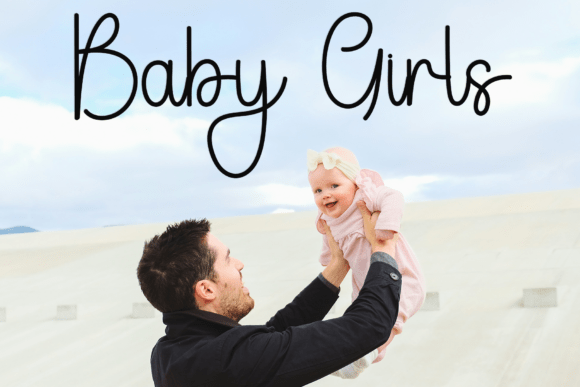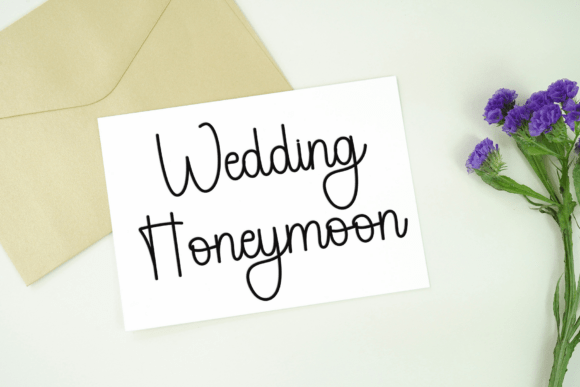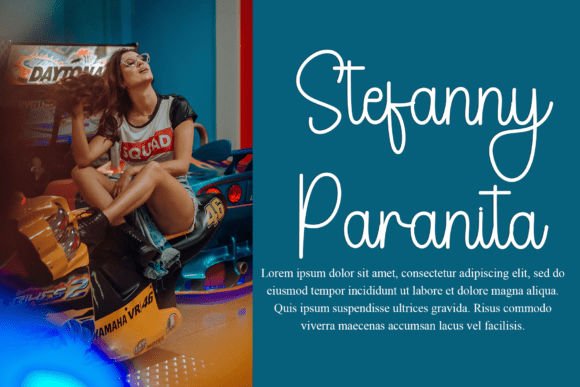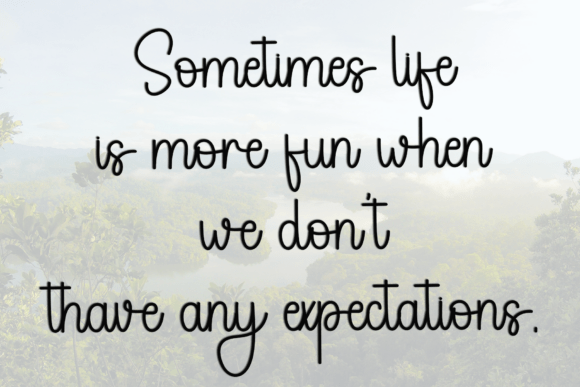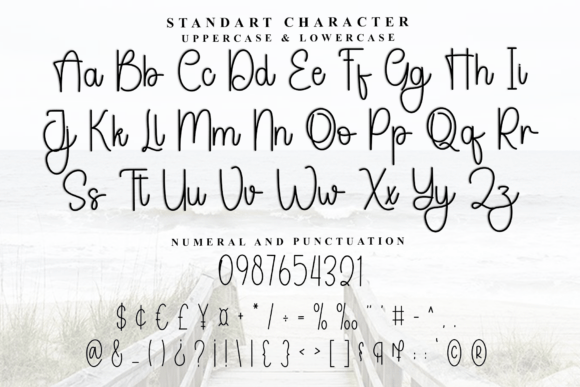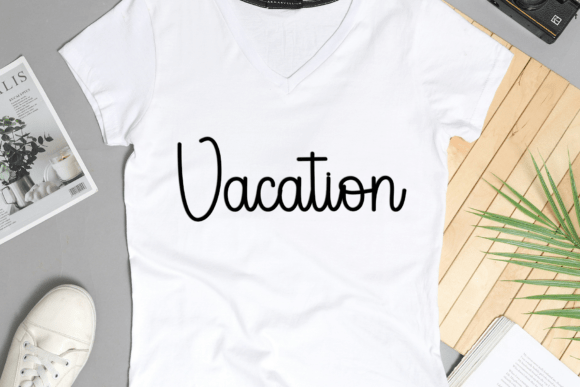
The Magic of Autumn Font: A Designer’s New Best Friend
I still remember the frustration of working on a design project, hours spent searching for the perfect font, only to end up with something that just didn’t feel right. My client wanted a unique, eye-catching look that would make their brand stand out, but I was stuck. That’s when I stumbled upon the Autumn Font, and it was love at first sight! ✨
With its soft, unique touch and distinctive strokes, Autumn Font has become a staple in my design toolkit. Its versatility and natural style make it perfect for a wide range of projects, from crafts to creative works. In this article, I’ll share my honest review, a practical guide on how to use it, and some helpful tips and tricks.
Autumn Font: An Honest Review
- ✨ Unique and eye-catching design
- ✅ Wide range of characters, making it perfect for design projects, crafts, and creative works
- ✅ Natural font style that appeals to many audiences across different artistic and creative fields
While Autumn Font is amazing, there are a few things to keep in mind: 🤔
- ⚠️ Some characters may require adjustments to fit perfectly in certain designs
- ⚠️ Limited availability of stylistic alternates, which may limit creative options
A Practical Guide to Using Autumn Font
The Story Behind Autumn Font
Autumn Font was designed by a talented typographer who wanted to create a unique and eye-catching font that would capture the essence of the natural world. Inspired by the changing leaves and cozy atmosphere of autumn, the designer crafted a font that is both beautiful and functional.
| What is Autumn Font? | Autumn Font is a beautiful and eye-catching font designed with a soft, unique touch. |